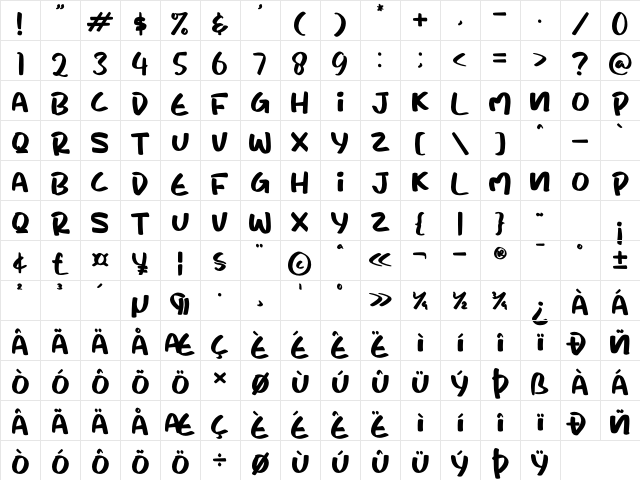
King Bird Regular
Foundry: Glorytype
Designer: Glorytype
Design Context for King Bird
King Bird is a composed and adaptable typeface that performs quietly and consistently across a wide range of design contexts.